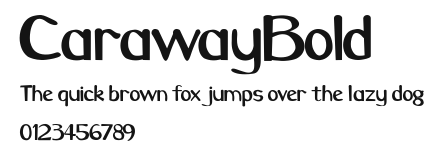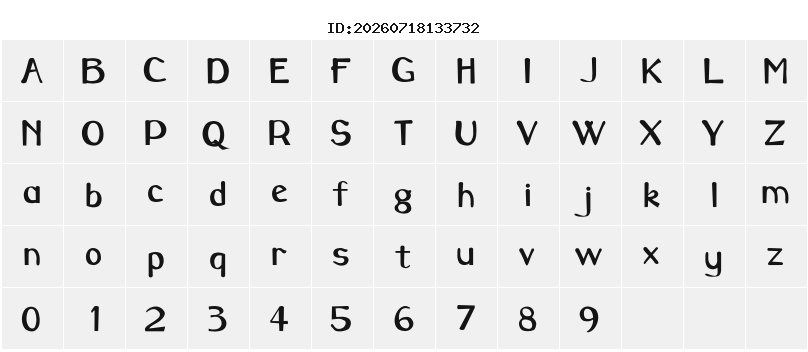
• Font Name: CarawayBold
• Full Font Name: CarawayBold
• PostScript Name: CarawayBold
About CarawayBold.ttf
CarawayBold.ttf is a modern, elegant sans-serif font designed for ultimate readability and visual harmony. Perfect for branding, headlines, web design, and print materials.